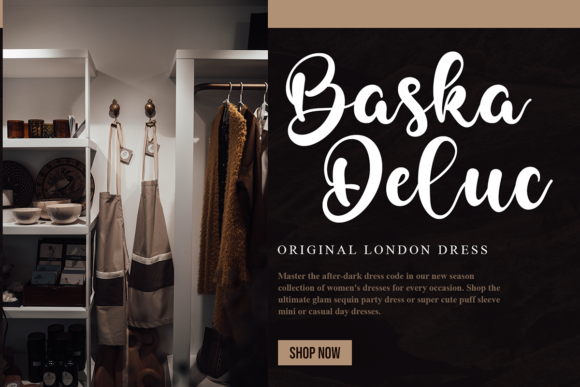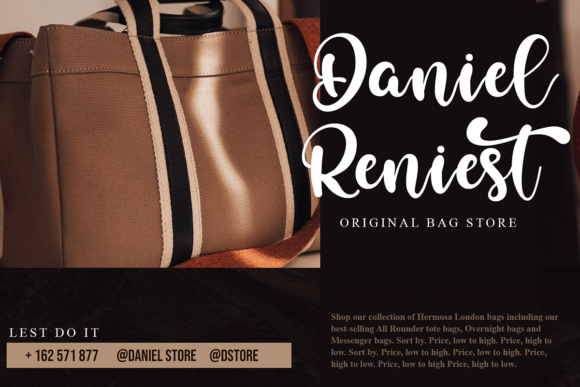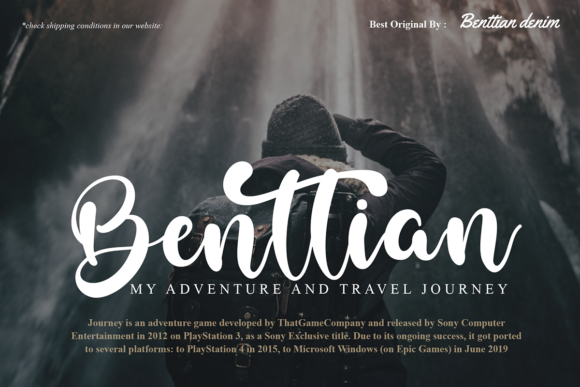
The Perfect Script: Unlocking the Magic of Bailey Austin Font
Have you ever been brainstorming a design project and suddenly, a spark of inspiration hits you? You envision a beautiful handwritten font that adds a touch of elegance to your creation. For many designers, that spark often leads to the Bailey Austin Font. This fine and graceful script font has become a go-to choice for designers looking to add a personal and sophisticated feel to their work.
With its versatility and chic appeal, the Bailey Austin Font is perfect for a wide range of applications, from greeting cards and invitations to headlines and social media graphics. Its unique blend of classic and modern elements makes it a valuable asset for designers seeking to elevate their projects and stand out from the crowd.
Bailey Austin Font Key Features
- Unique Characteristics: The Bailey Austin font has a distinctive, elegant script style with a mix of modern and vintage flair, making it suitable for a wide range of design applications
- Font Style: The font is available in Regular and Bold styles, offering flexibility for designers to create contrast and emphasis in their designs
Designer Review: Bailey Austin Font
The Bailey Austin font is a unique and stylish addition to any digital design project. Here’s my honest review of this font.
- Distinctive aesthetic: Bailey Austin has a distinctive, elegant look that sets it apart from more common fonts.
- Good legibility: The font is easy to read, even at smaller font sizes, making it suitable for body text.
- Stylish alternatives: The font offers a range of stylish alternatives, including bold and italic styles, which can add visual interest to your designs.
- Limited language support: Bailey Austin may not support certain languages or character sets, which could be a limitation for designers working on international projects.
- Not ideal for large blocks of text: While the font is readable, it’s not the best choice for large blocks of text, as it can become fatiguing to read.
Overall, I think the Bailey Austin font is a great choice for designers looking to add a touch of elegance and sophistication to their projects. While it has some limitations, its unique aesthetic and good legibility make it a solid addition to any design toolkit.
The Bailey Austin font is ideal for:
2. Branding and marketing materials.
3. Creative and artistic projects.
4. Any project that requires a elegant and sophisticated look.
1. Use the Bailey Austin font in combination with other elegant fonts to create a sophisticated look.
2. Experiment with different font sizes and colors to add depth and interest to your design.
3. Use the font in bold or italic styles to add emphasis and create visual
Alternatives to Bailey Austin Font
The Great Vibes font is a modern, elegant script font that is perfect for creating a sophisticated and luxurious feel. It’s ideal for use in headings, logos, and other design elements where a touch of elegance is desired. Great Vibes font is more cursive and elegant compared to Bailey Austin Font, which has a more rustic feel.
The Pacifico font is a beautiful, modern script font that is perfect for creating a relaxed and casual feel. It’s ideal for use in headings, logos, and other design elements where a touch of sophistication is desired. Pacifico font is more relaxed and casual compared to Bailey Austin Font, which has a more rustic feel.
The Lobster font is a fun, playful script font that is perfect for creating a whimsical and eye-catching feel. It’s ideal for use in headings, logos, and other design elements where a touch of playfulness is desired. Lobster font is more playful and fun compared to Bailey Austin Font, which has a more rustic feel.
Q: Is the Bailey Austin Font available in multiple weights and styles?
Yes, the Bailey Austin Font family includes a range of weights, from Light to Extra Bold, as well as italic and bold italic styles. This allows designers to create visually appealing typography for various design projects and applications.